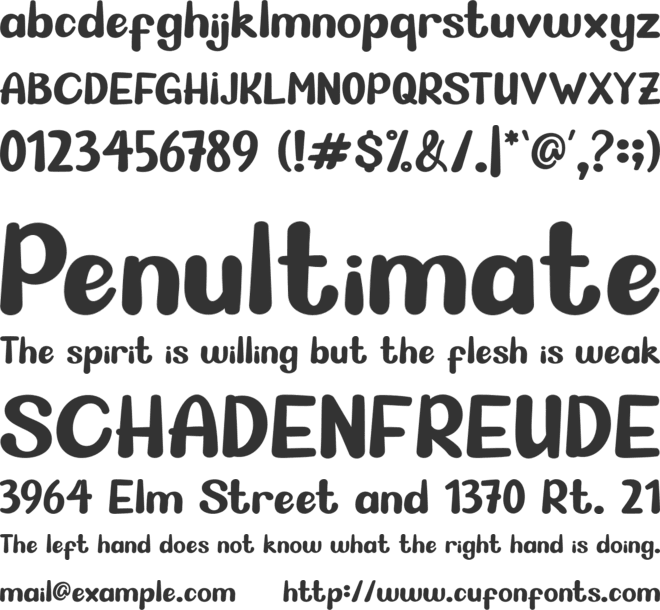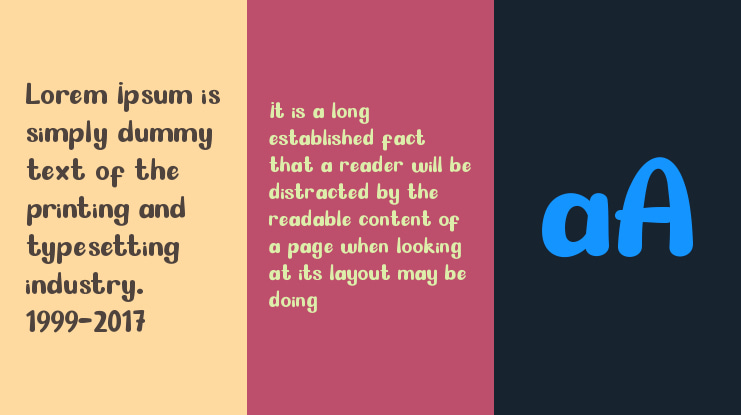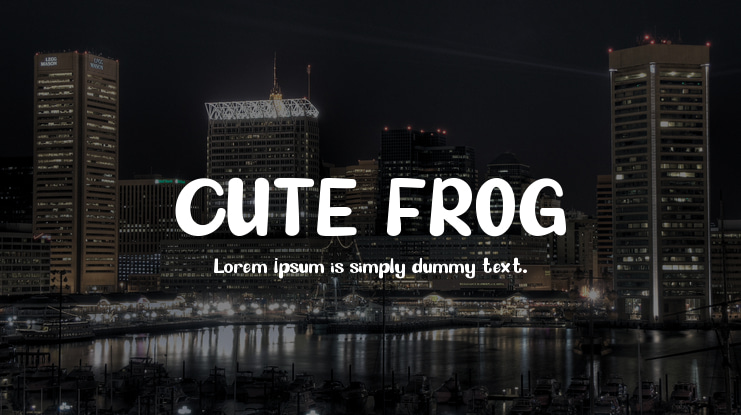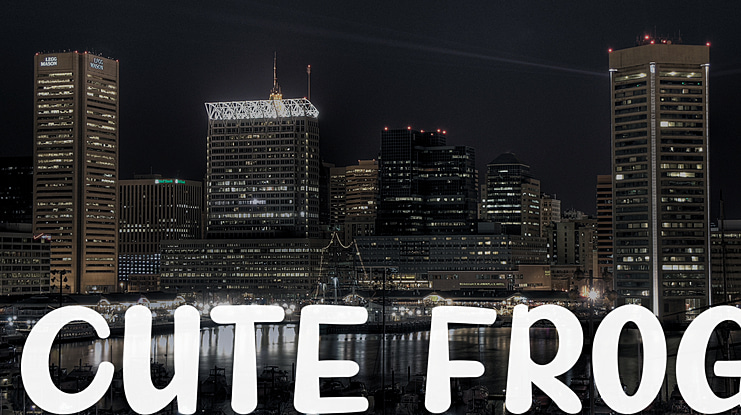
CUTE FROG Font
Cute Frog is a product font that has a frog character in it and has a modern style suitable for making logos, templet designs, screen printing clothes, banners and so on related to children.
Cute Frog also provides alternative letters and numbers as well as several other bonus vectors.